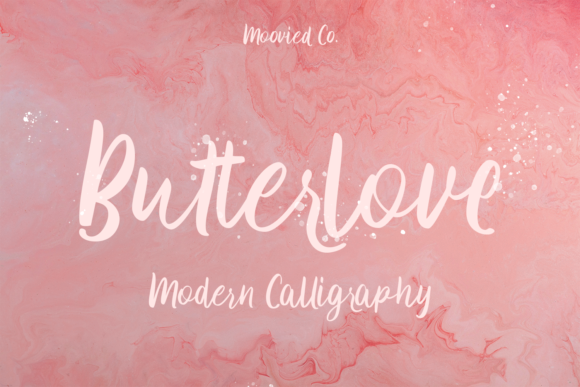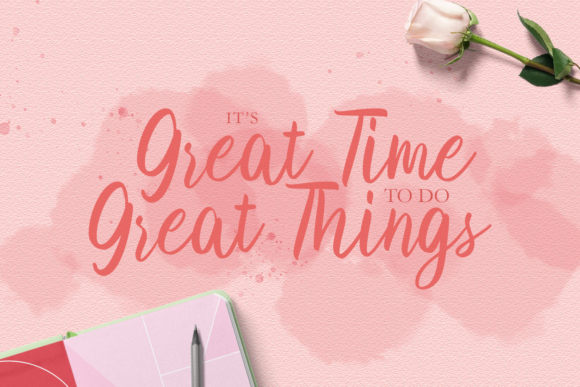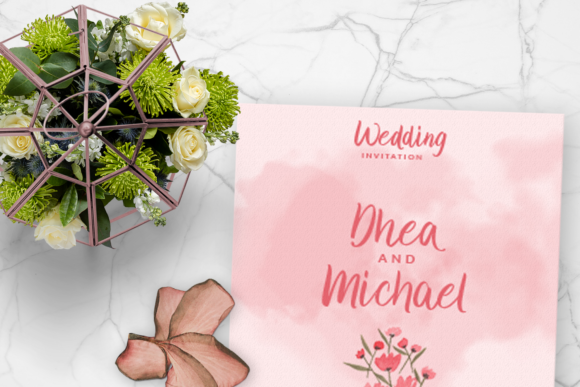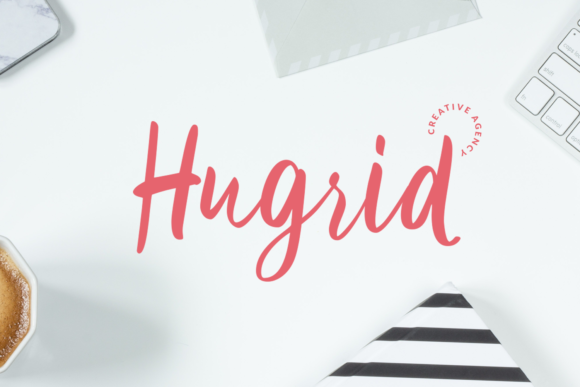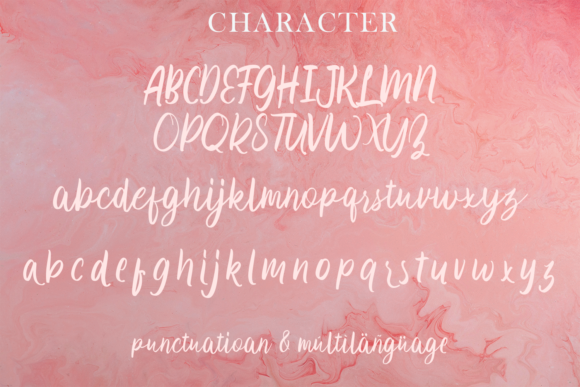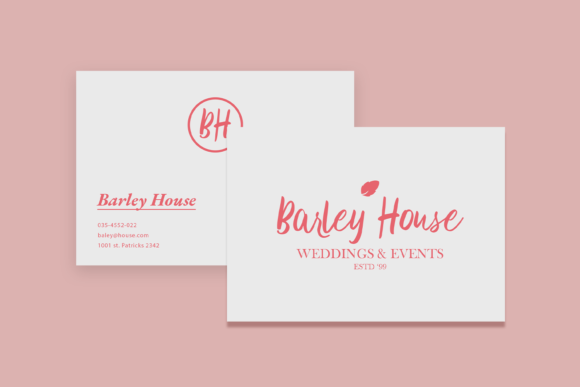
Butterlove Font
About Butterlove Font
Butterlove results out of a stunning pairing of a brush pen and pencil that makes it look incredibly endearing and authentic. Use this gorgeous and unique this handwritten font to bring any DIY project to life!